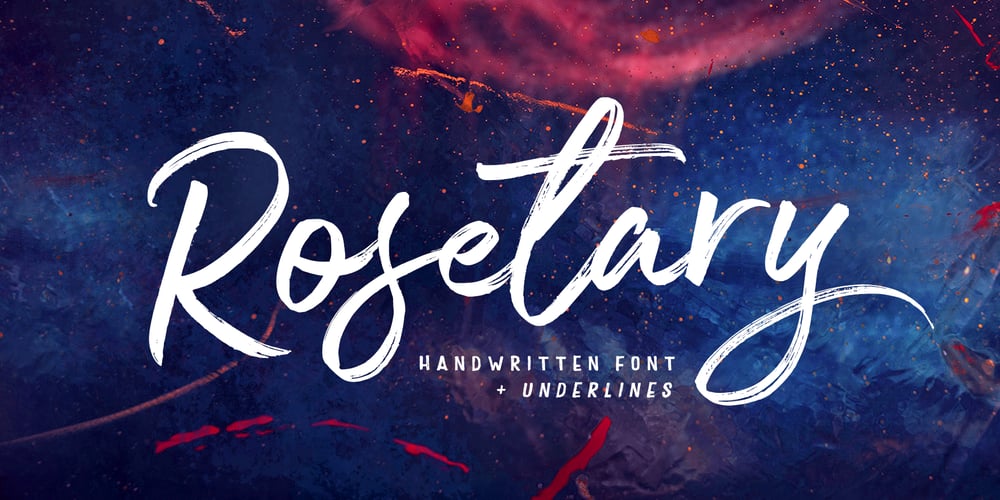
Rosetary
Rosetary font
Rosetary Font Family was designed by Mauli Zari and published by Dhan Studio. Rosetary contains 2 styles and family package options. Rosetary is textured brush font, featuring a contemporary approach to design, naturally handmade and with underscores. It also has alternatives and ligatures that make your design more attractive.Rosetary includes a complete set of uppercase and lowercase letters, as well as multi-language support, numbers, punctuation.Suitable for use in title design as well as apparel, invitations, books tittle, stationery design, quotes, branding, logos, greeting card, t-shirt, packaging design, poster and more.